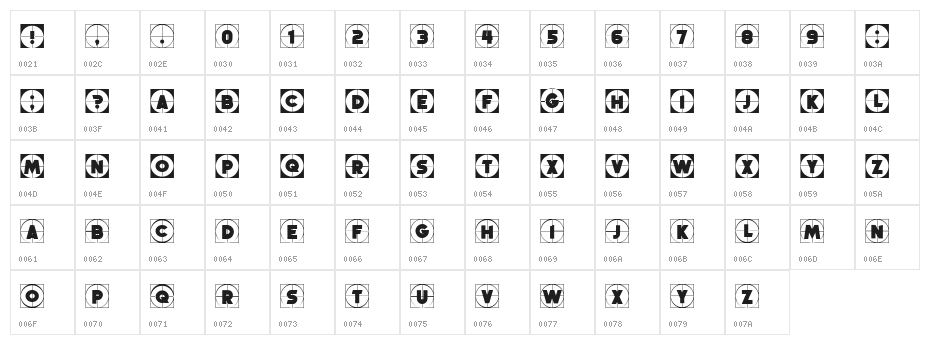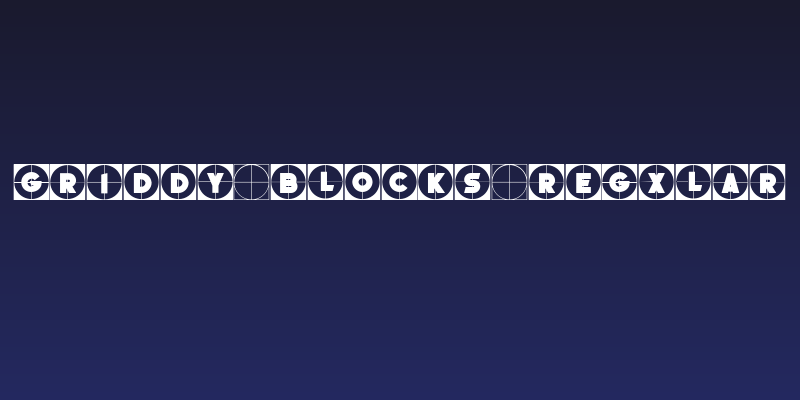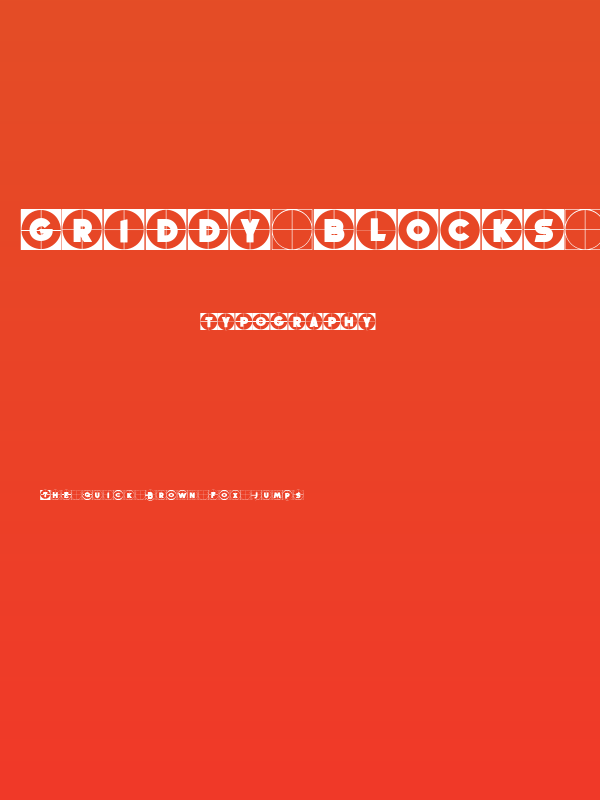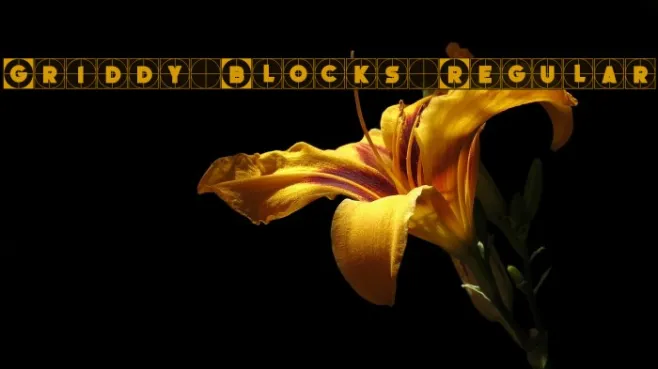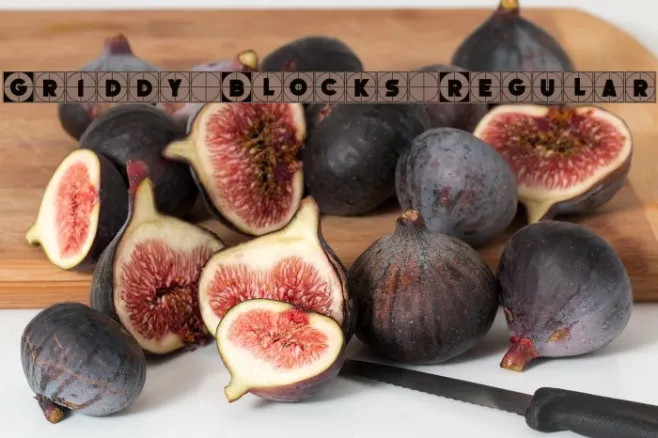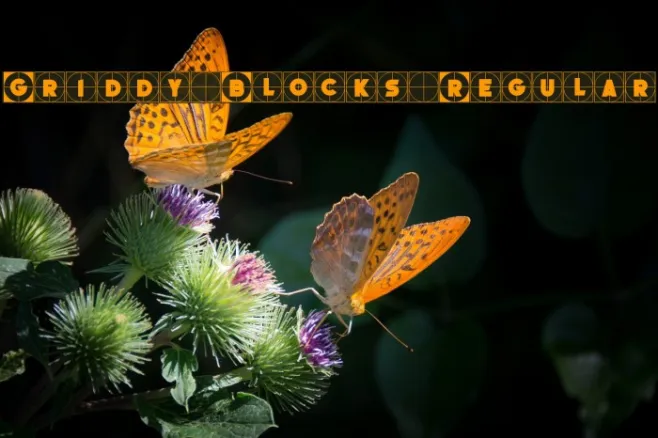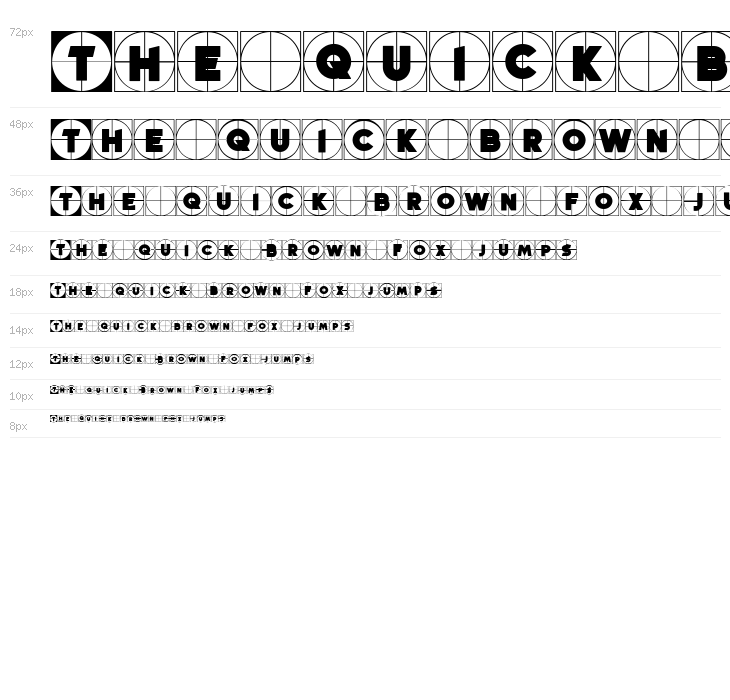
Griddy Blocks Regular Font
Griddy Blocks Regular Description
This font features a unique design where each character is enclosed within a grid-like block, creating a bold and geometric appearance. The letters are capitalized and maintain a consistent height and width, emphasizing a strong, structured form. The circular elements within the blocks add a dynamic contrast to the otherwise rigid grid, making the font stand out. The numbers and special characters follow the same design principles, ensuring uniformity across all elements. This style is particularly eye-catching and would be suitable for projects that require a modern and distinctive look.
| Proposed Projects | Ideal for modern branding, posters, digital art, and any project requiring a striking visual impact. |